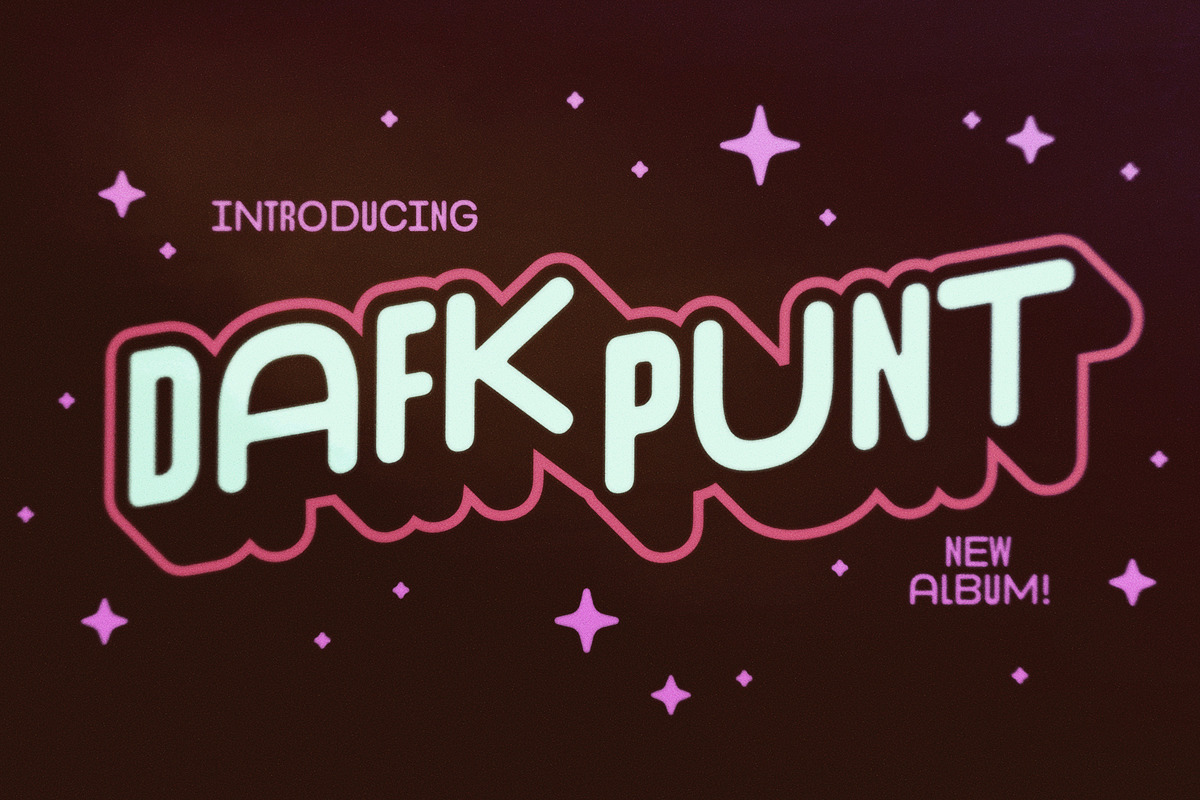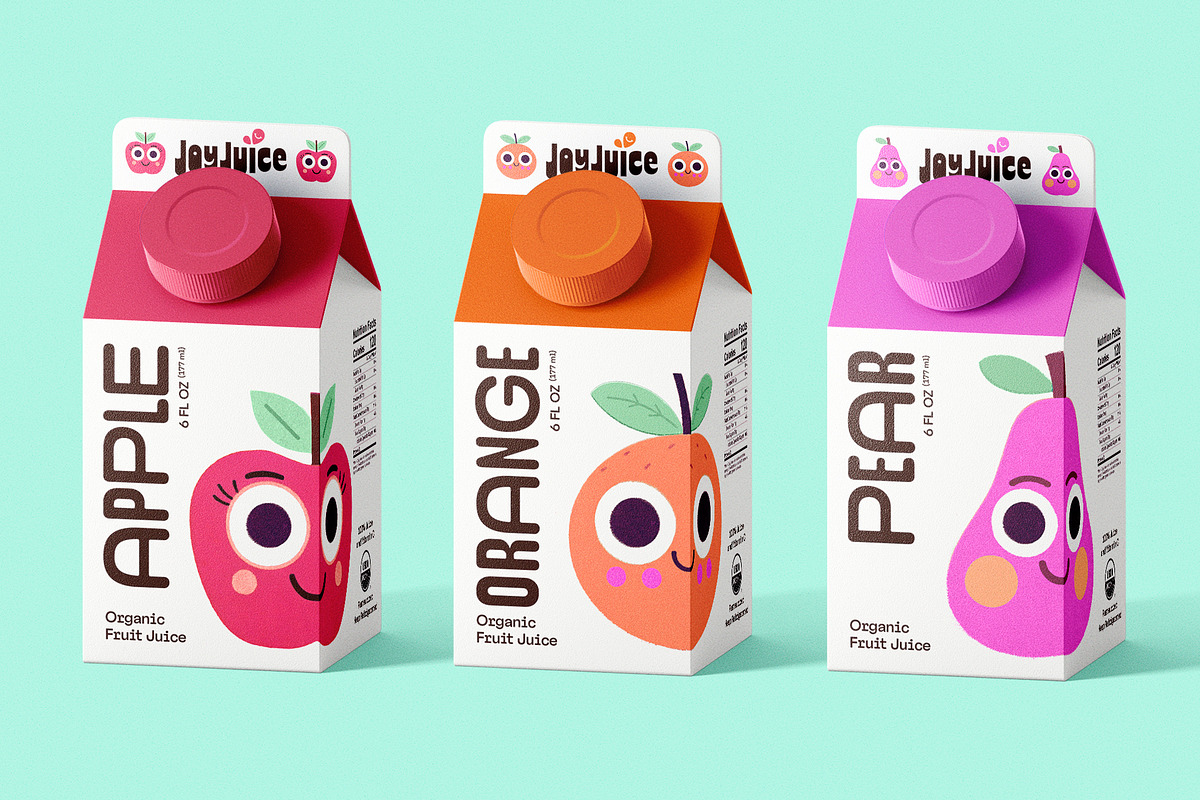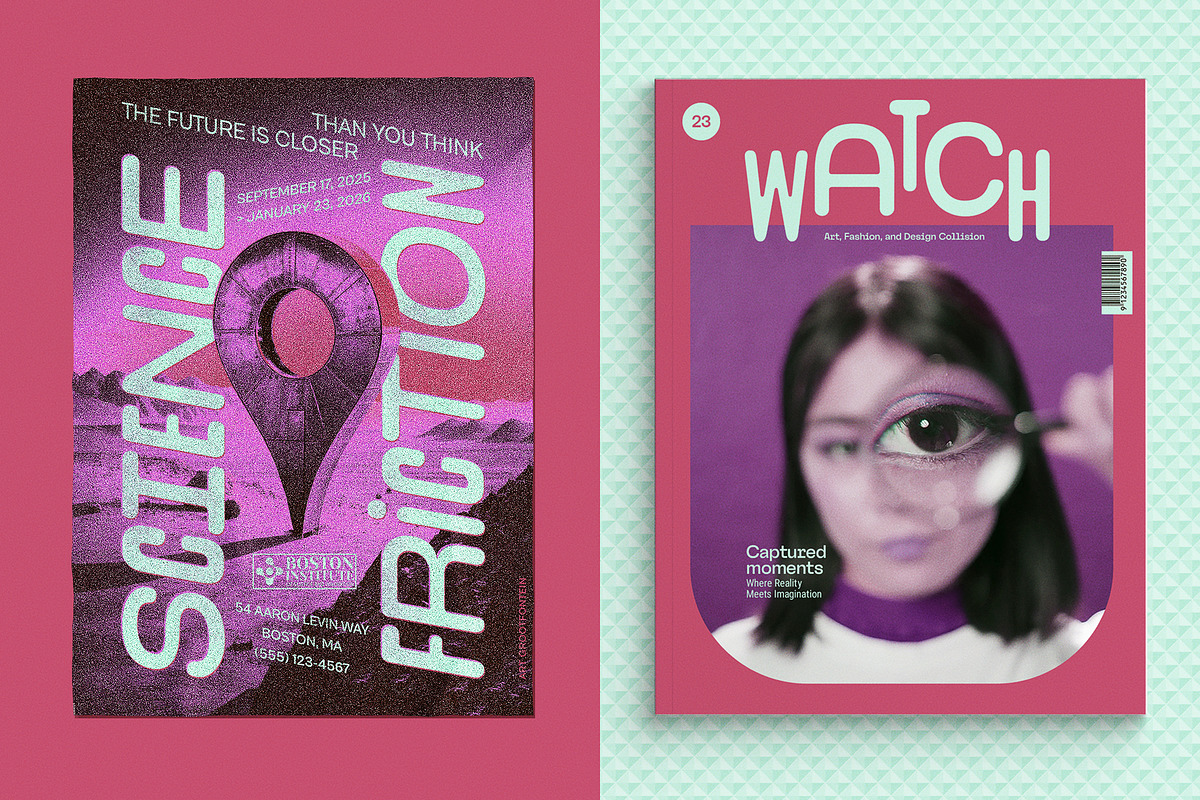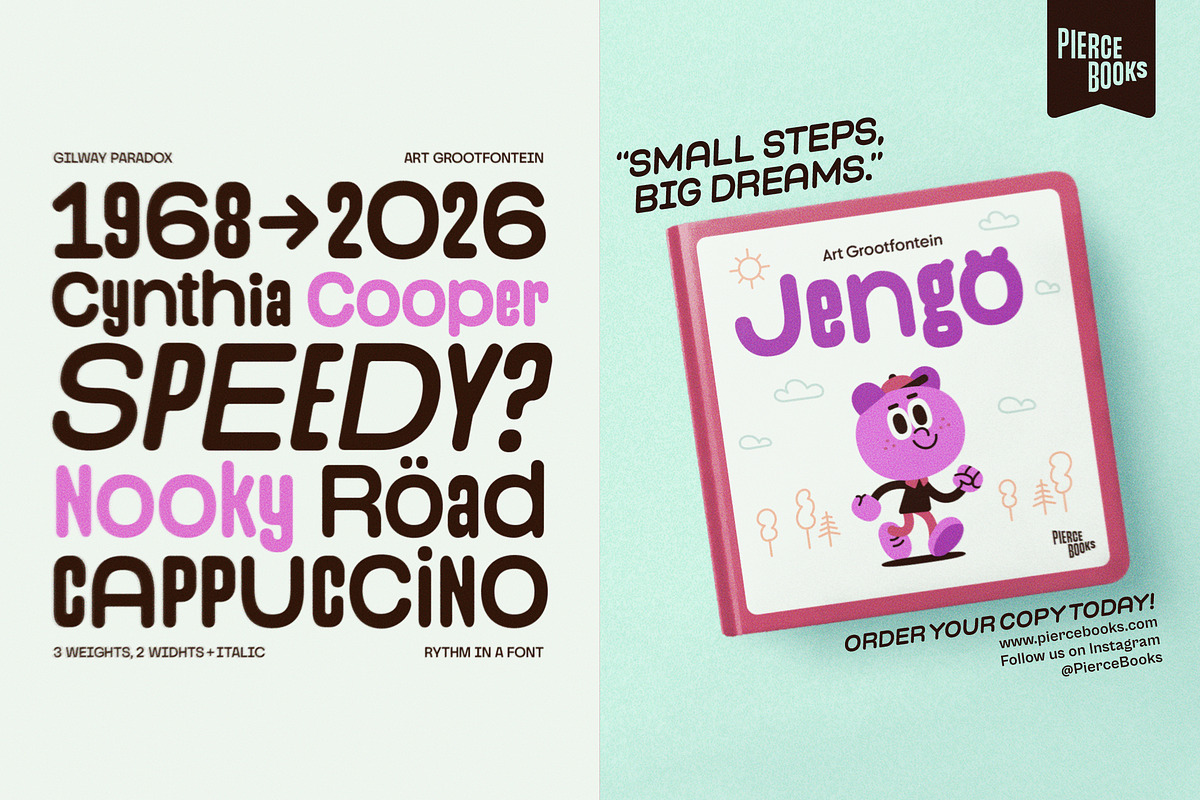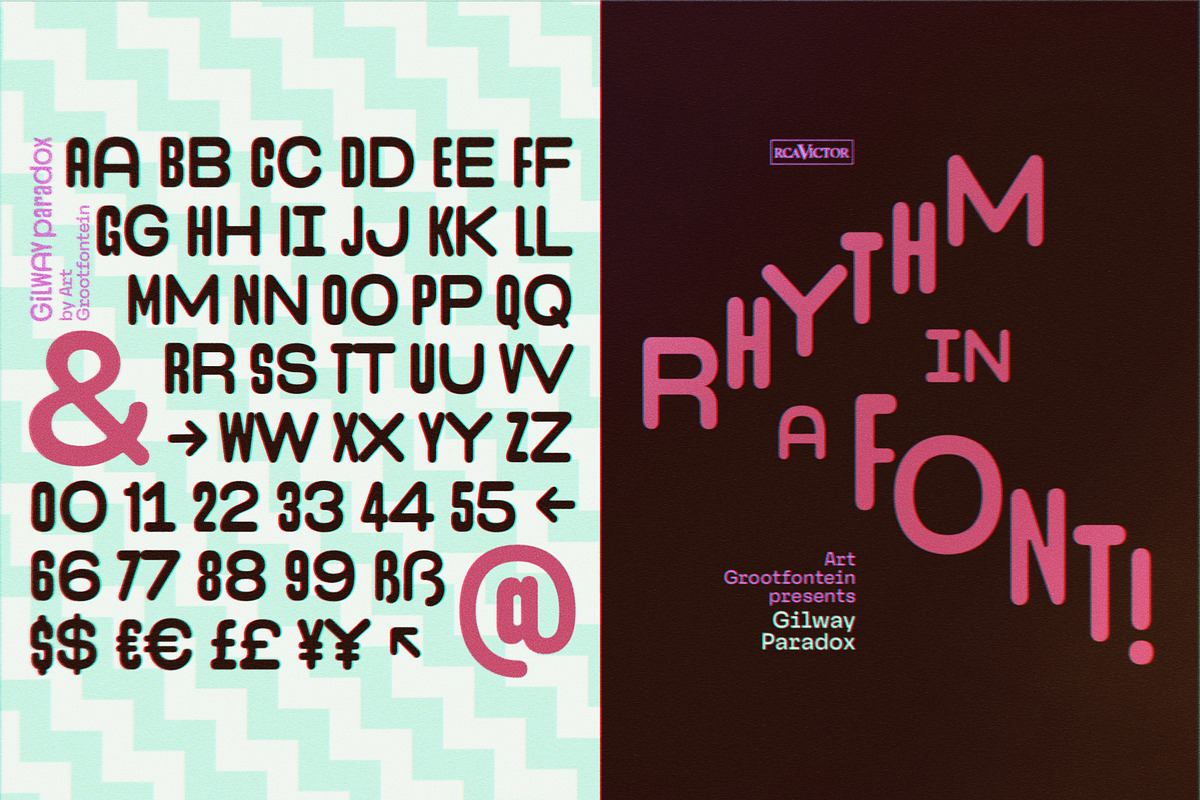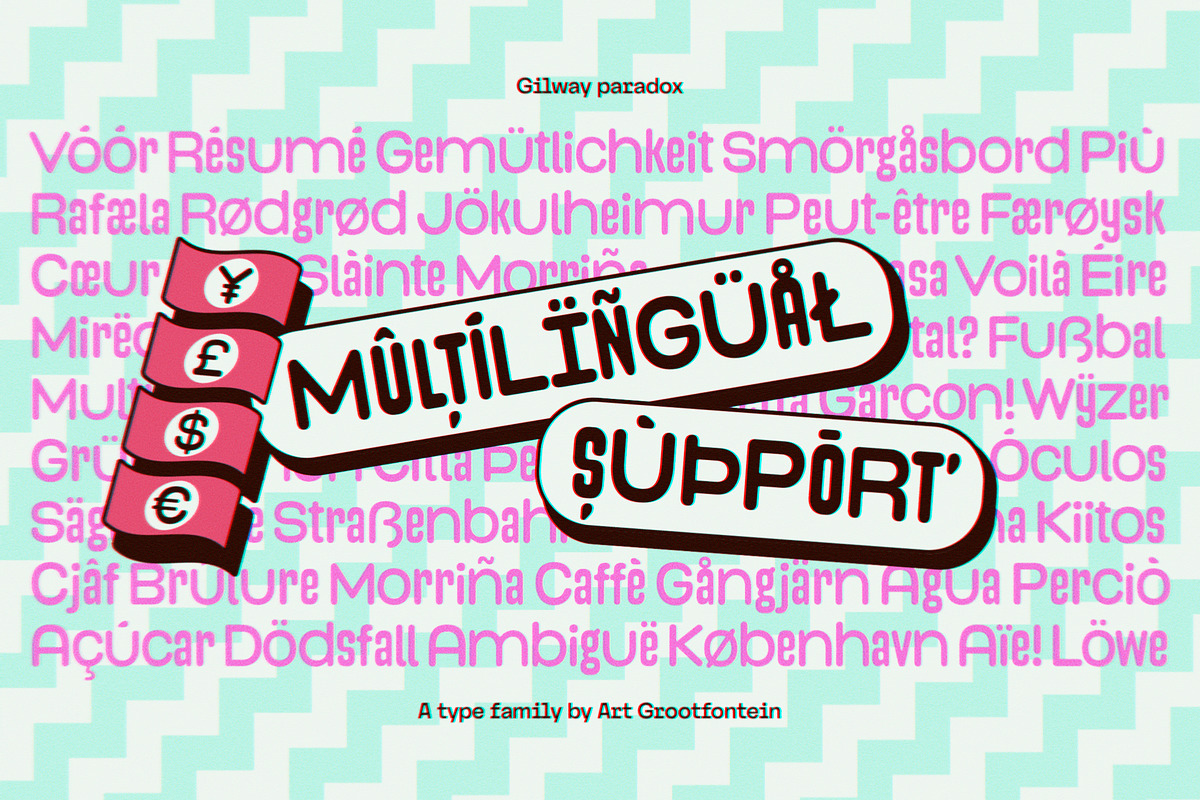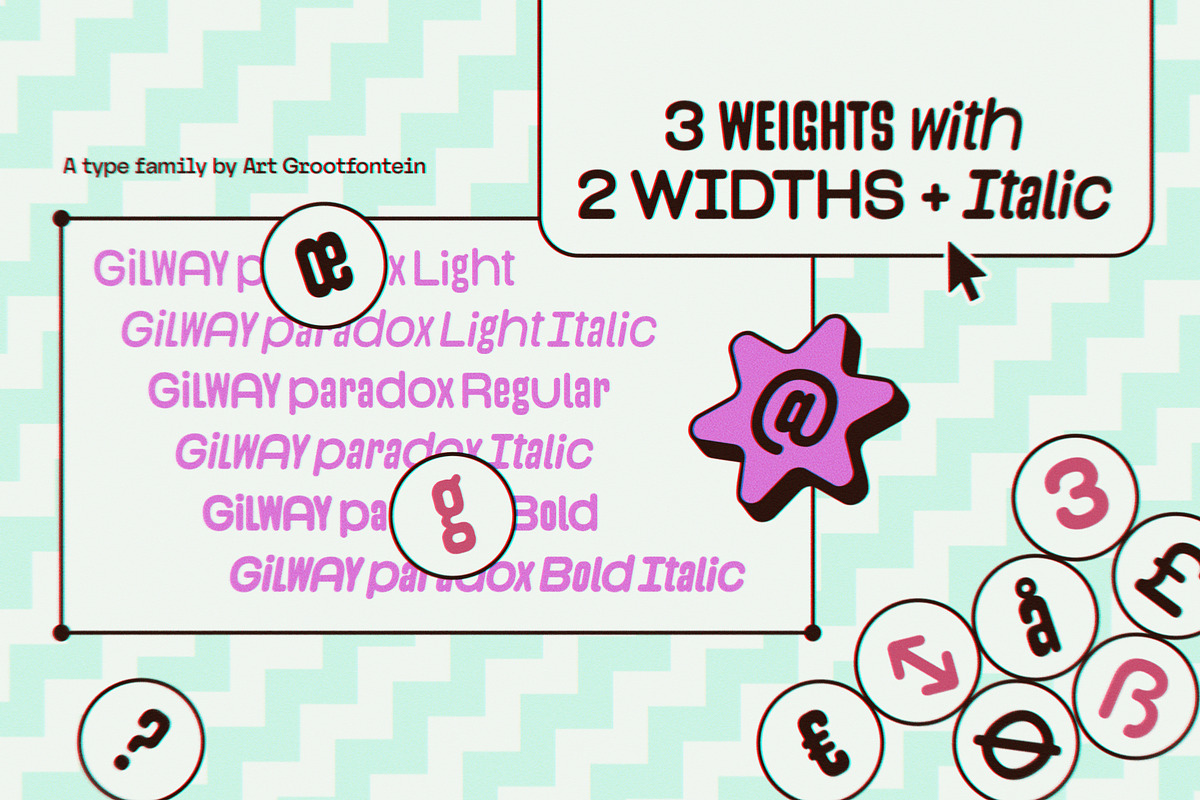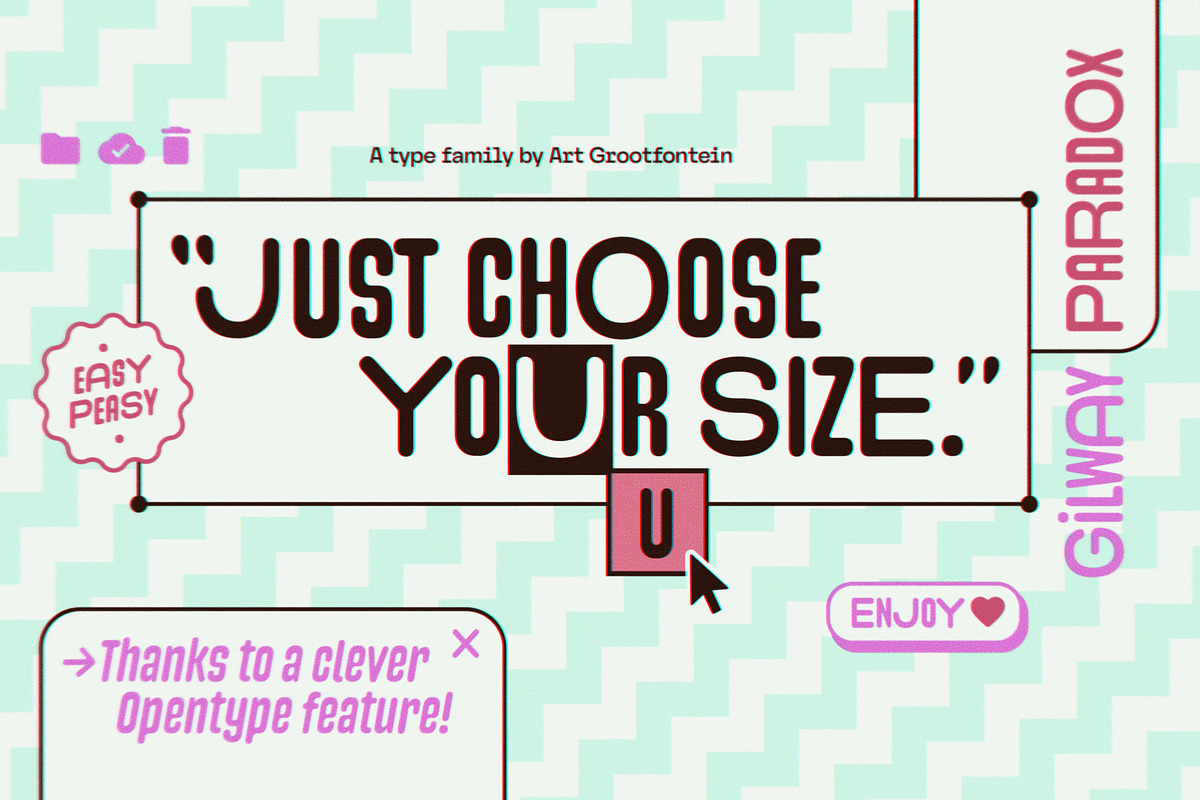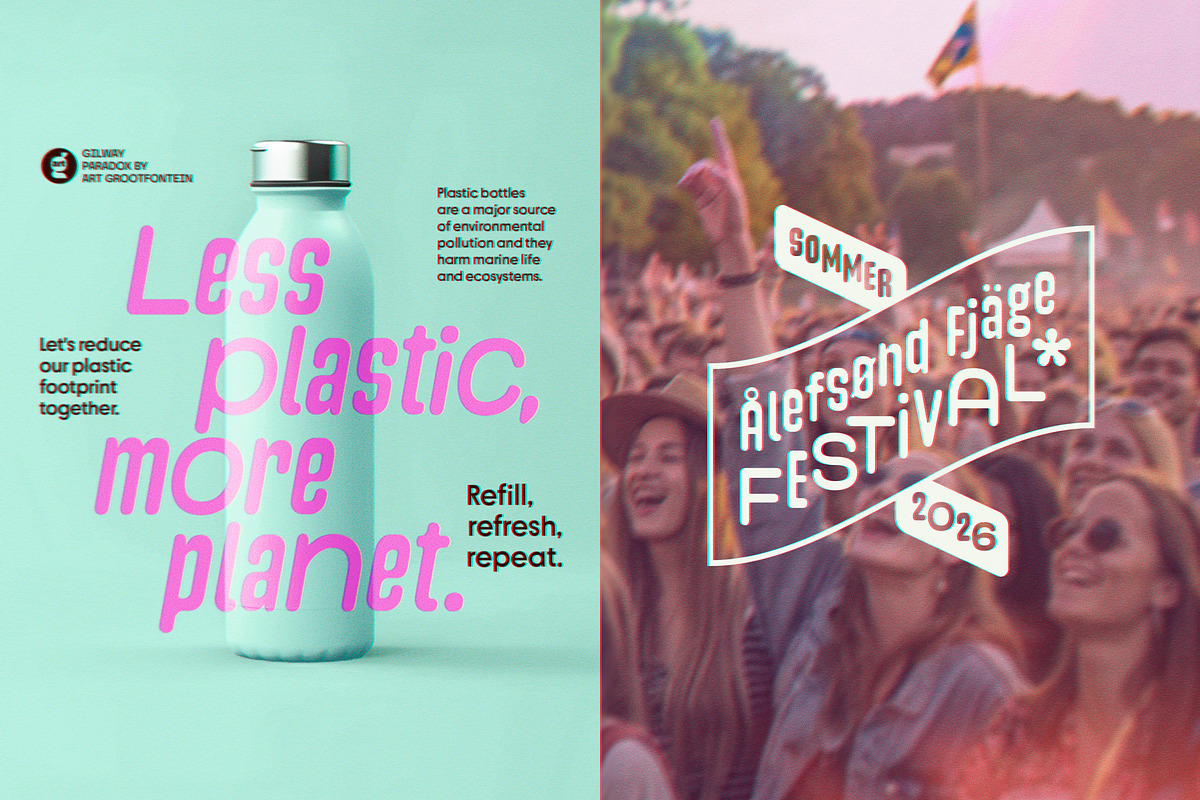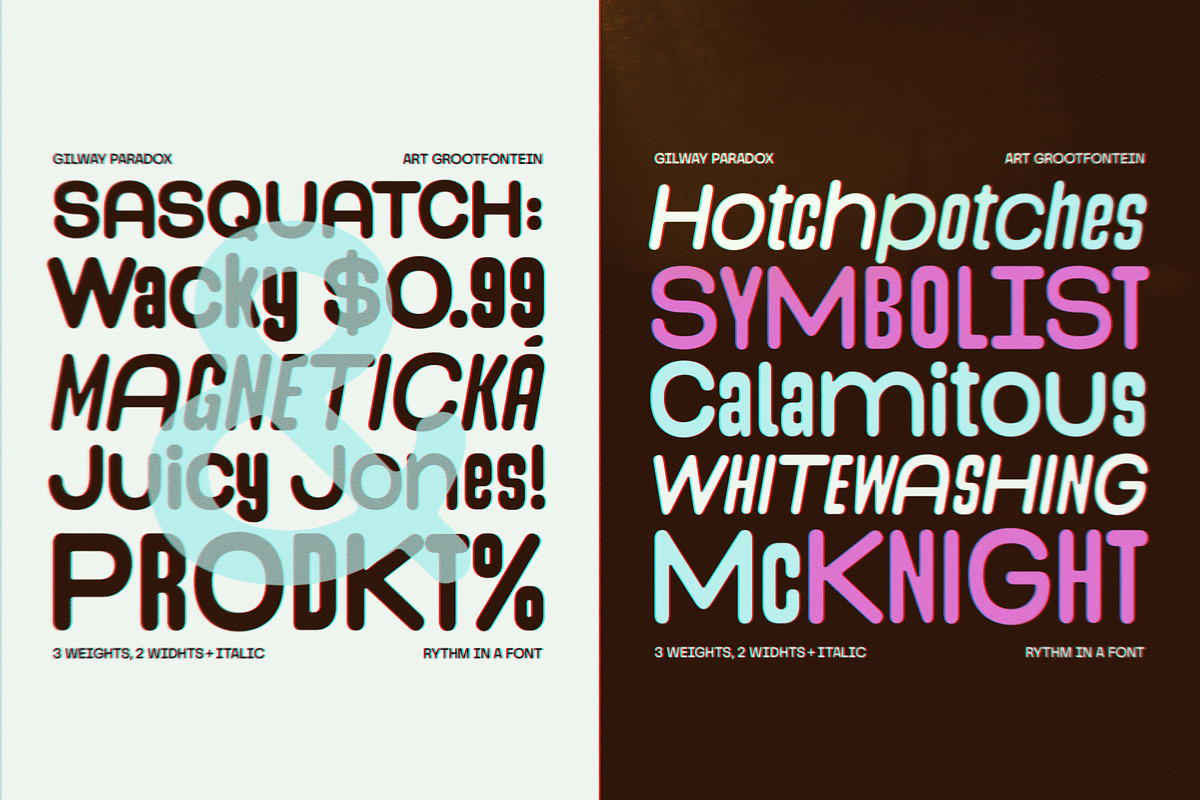
Gilway Paradox
Experience the Rhythm of a Unique Dual-Width Font!
Meet Gilway Paradox—a versatile, rounded typeface where warmth meets motion. With its striking dual-width characters, this font creates an irresistible visual rhythm, adding dynamic energy to any design. Seamlessly toggle between widths with a single click using OpenType, unlocking endless creative possibilities.
Designed for Impact
• Three weights + italics: Light, Regular, and Bold. Each with a playful yet polished tone. • Unmatched versatility: Perfect for branding, editorial layouts, packaging, and fashion/beauty aesthetics. • Global reach: Supports 30+ languages, including major European tongues and Afrikaans, Swahili, Filipino, and Zulu.
Master the Paradox